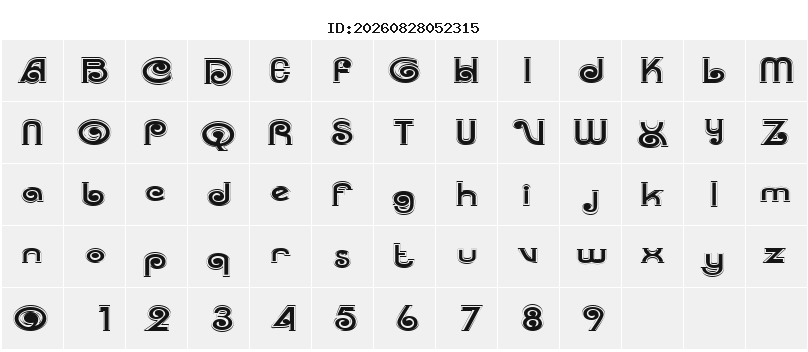
Trenz Preview
• Font Name: Trenz
• Full Font Name: Trenz
About Trenz.ttf
Trenz.ttf is a modern, elegant sans-serif font designed for ultimate readability and visual harmony. Perfect for branding, headlines, web design, and print materials.